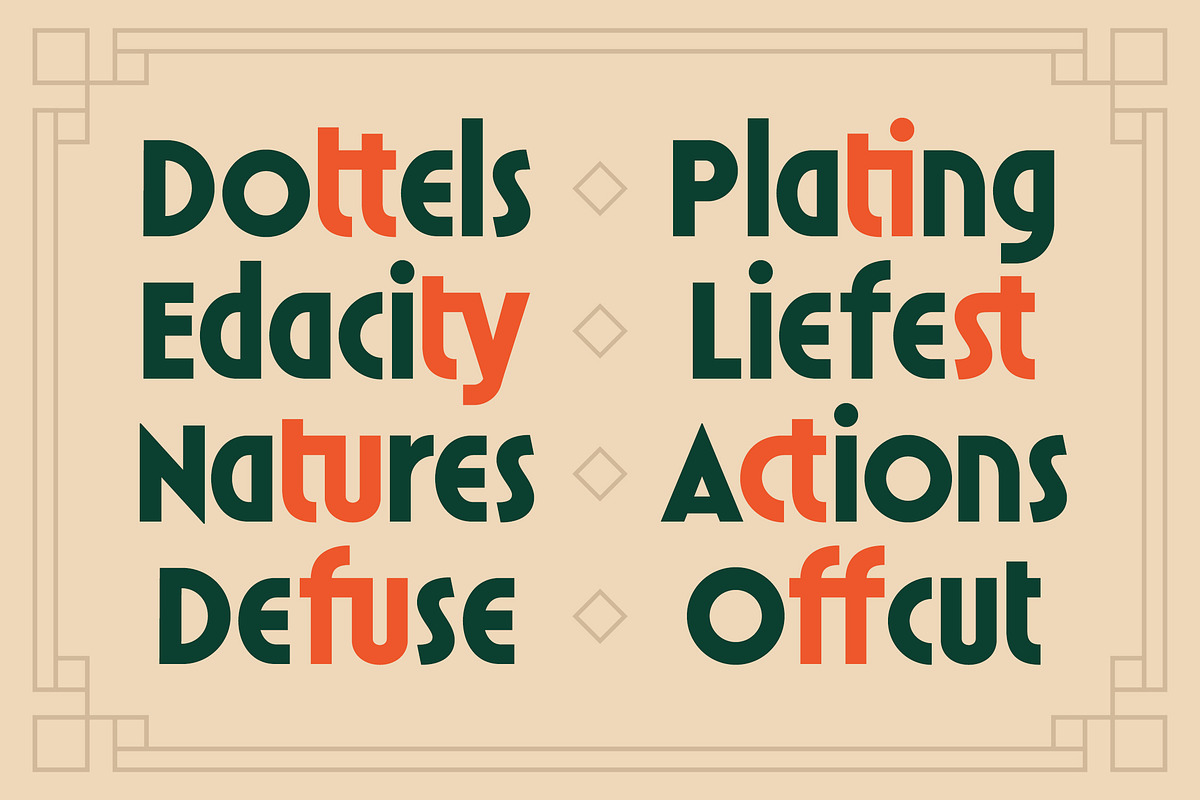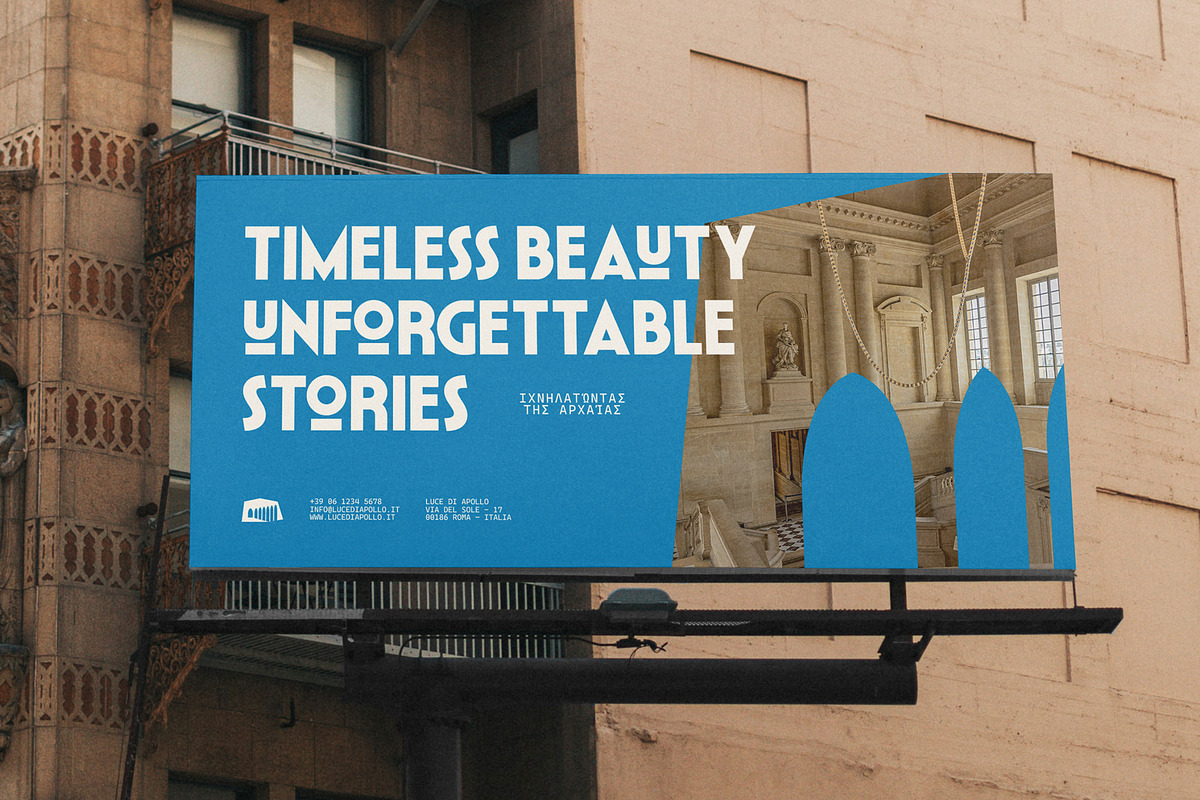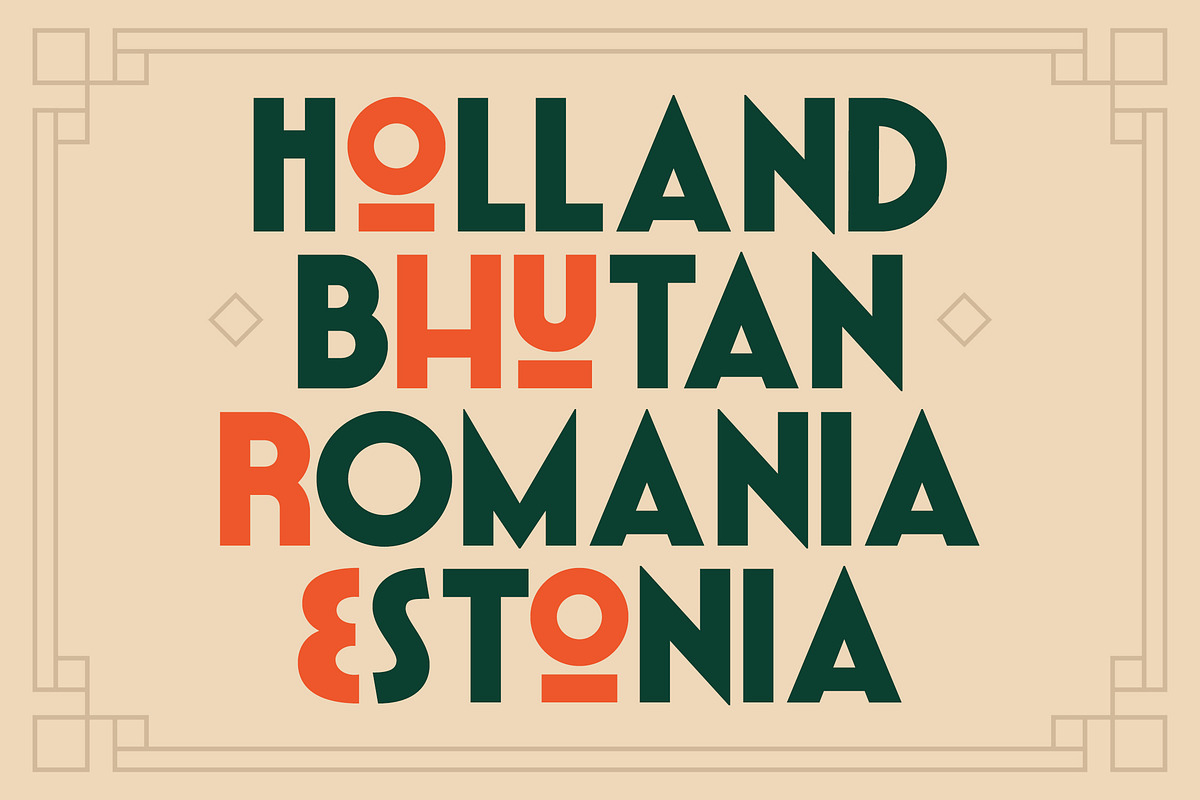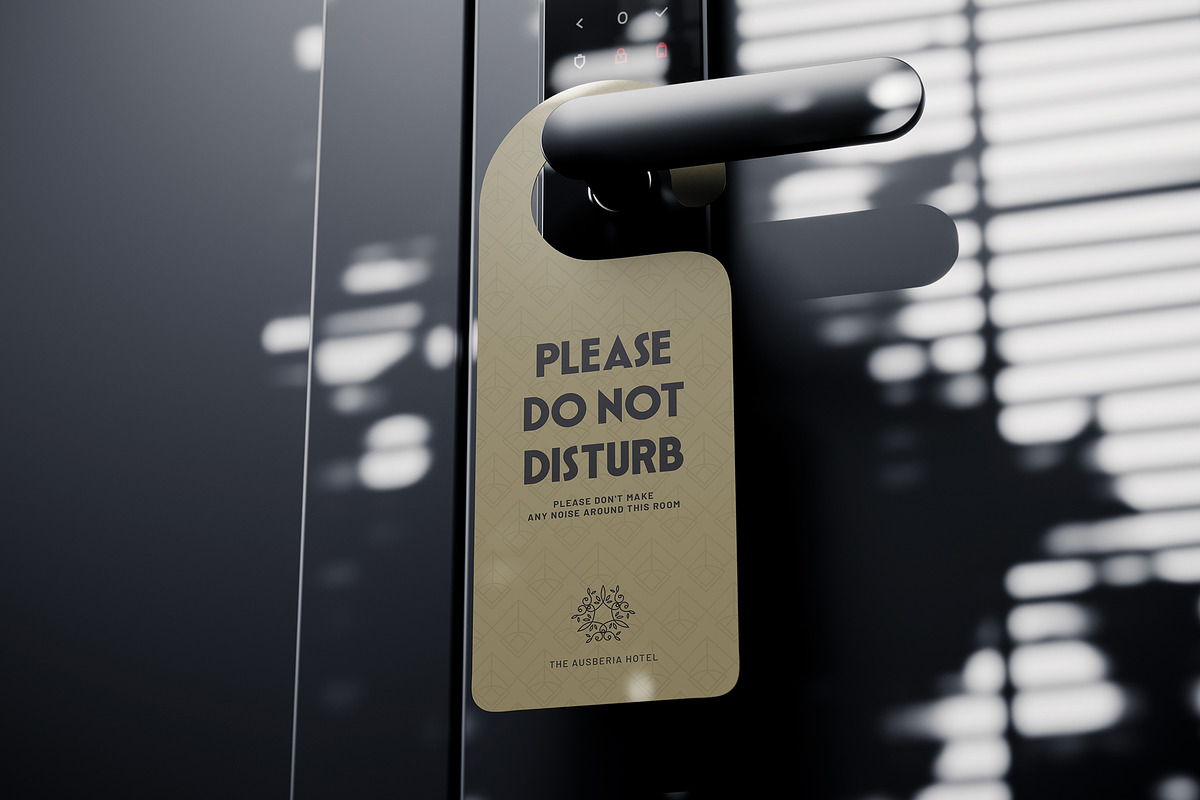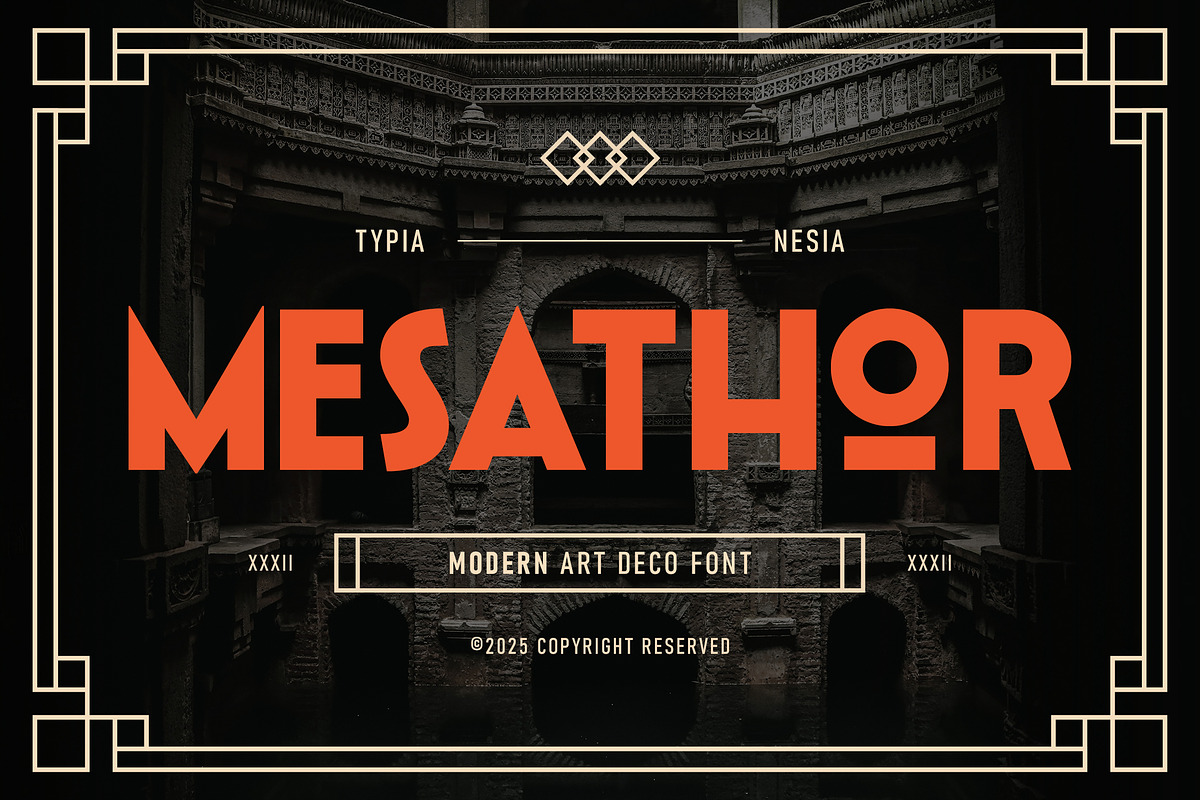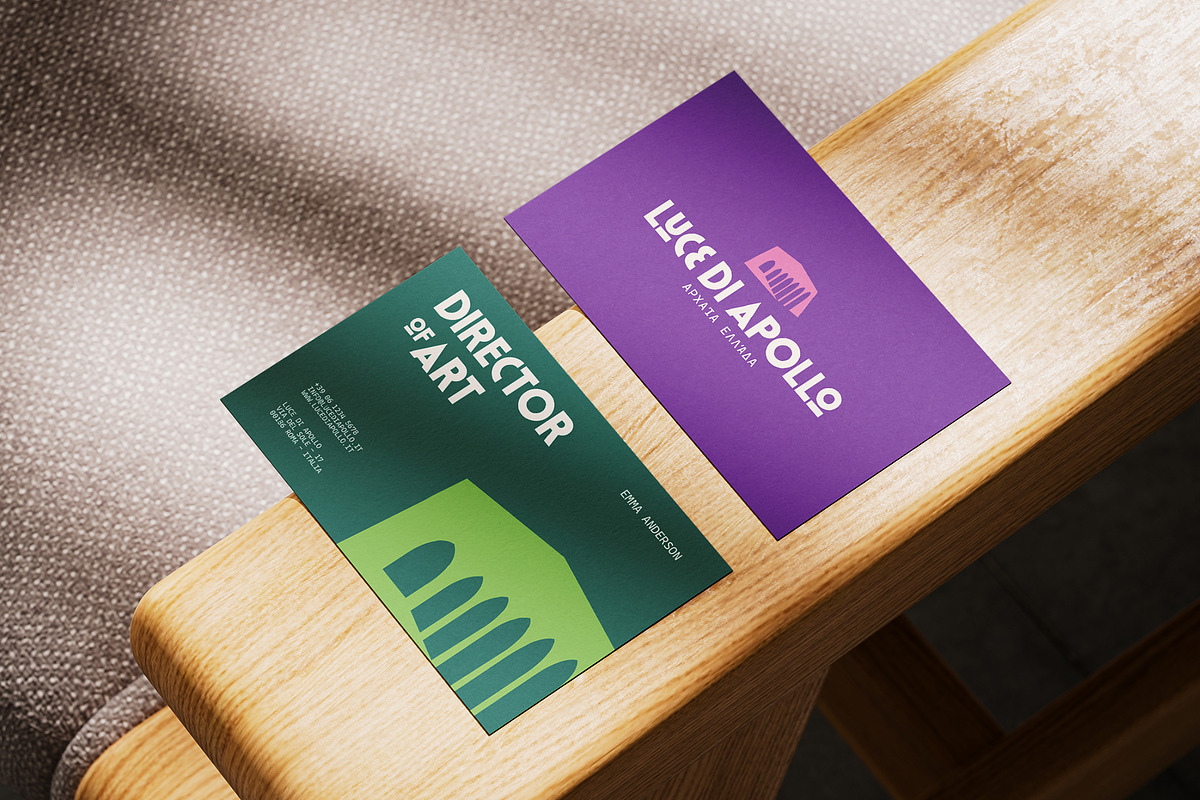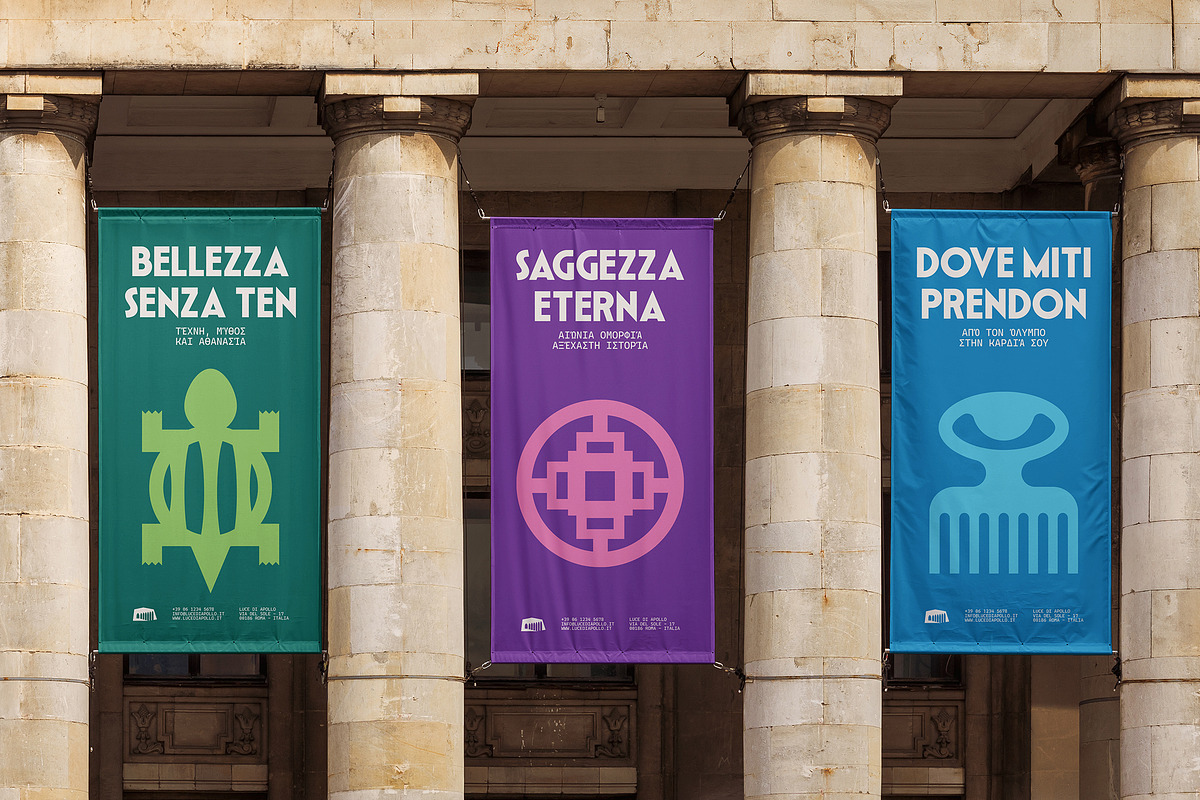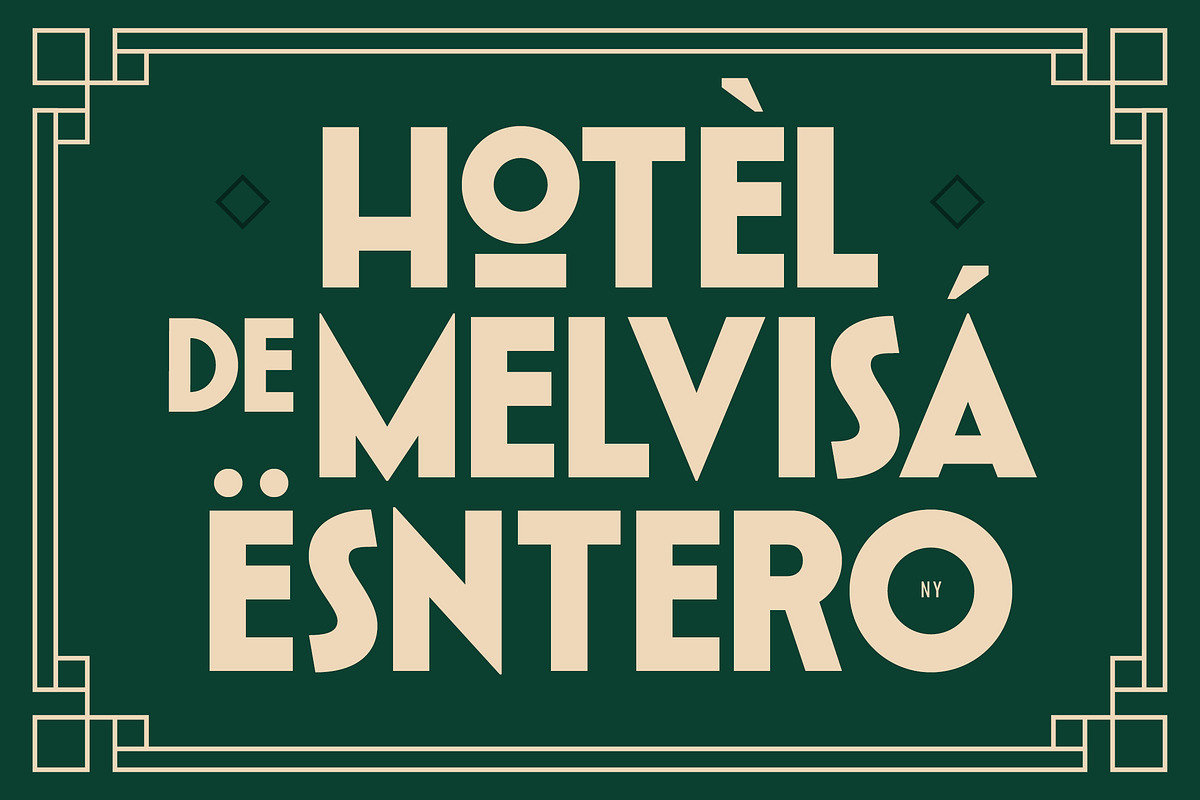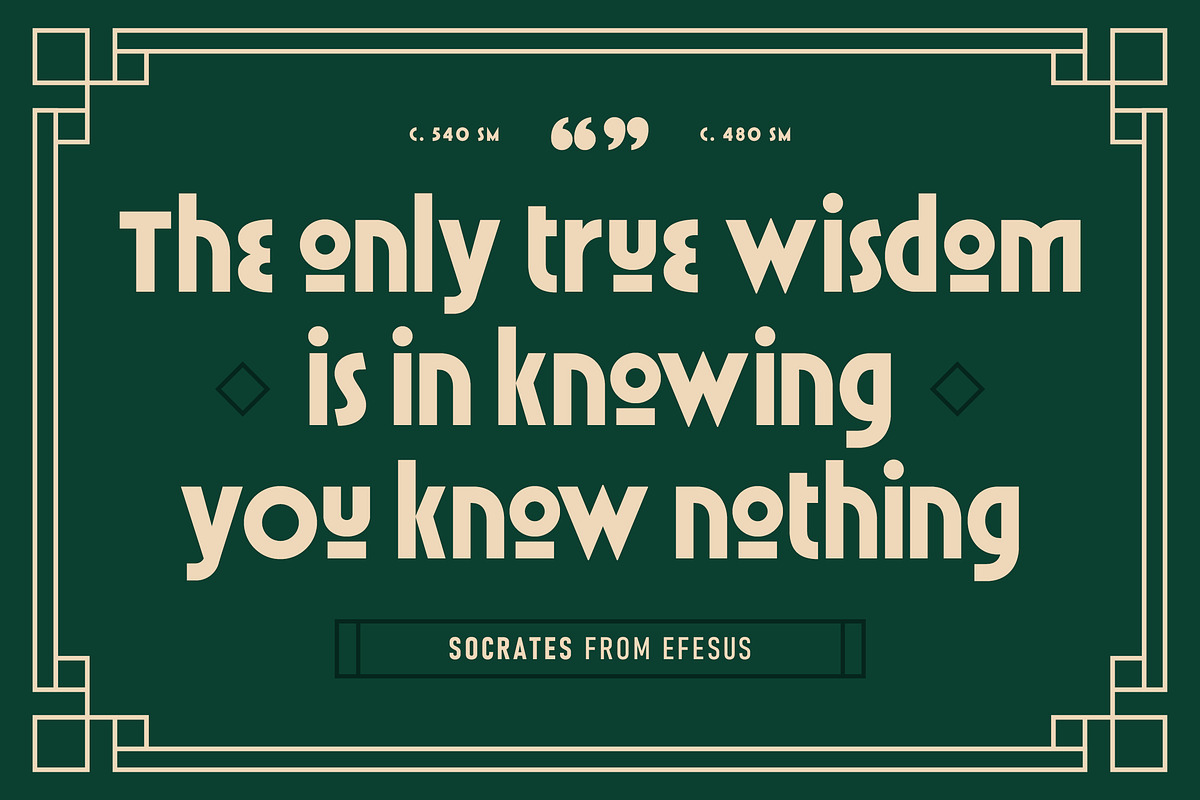
Mesathor – Modern Art Deco Font
Mesathor – A Modern Bold and Geometric Art Deco Typeface
Mesathor is a bold and modern Art Deco-inspired display font that blends vintage charm with contemporary geometric design. Featuring sharp angles, strong vertical lines, and elegant symmetry, this typeface is perfect for branding materials, headlines, impactful headlines, advertising, packaging design, editorial layouts, digital media and poster designs. Mesathor's stylized form evokes sophistication and strength, making it an ideal choice for designers seeking a timeless yet powerful visual identity. With its clean structure and retro-futuristic vibe, Mesathor captures attention in both digital and print formats.